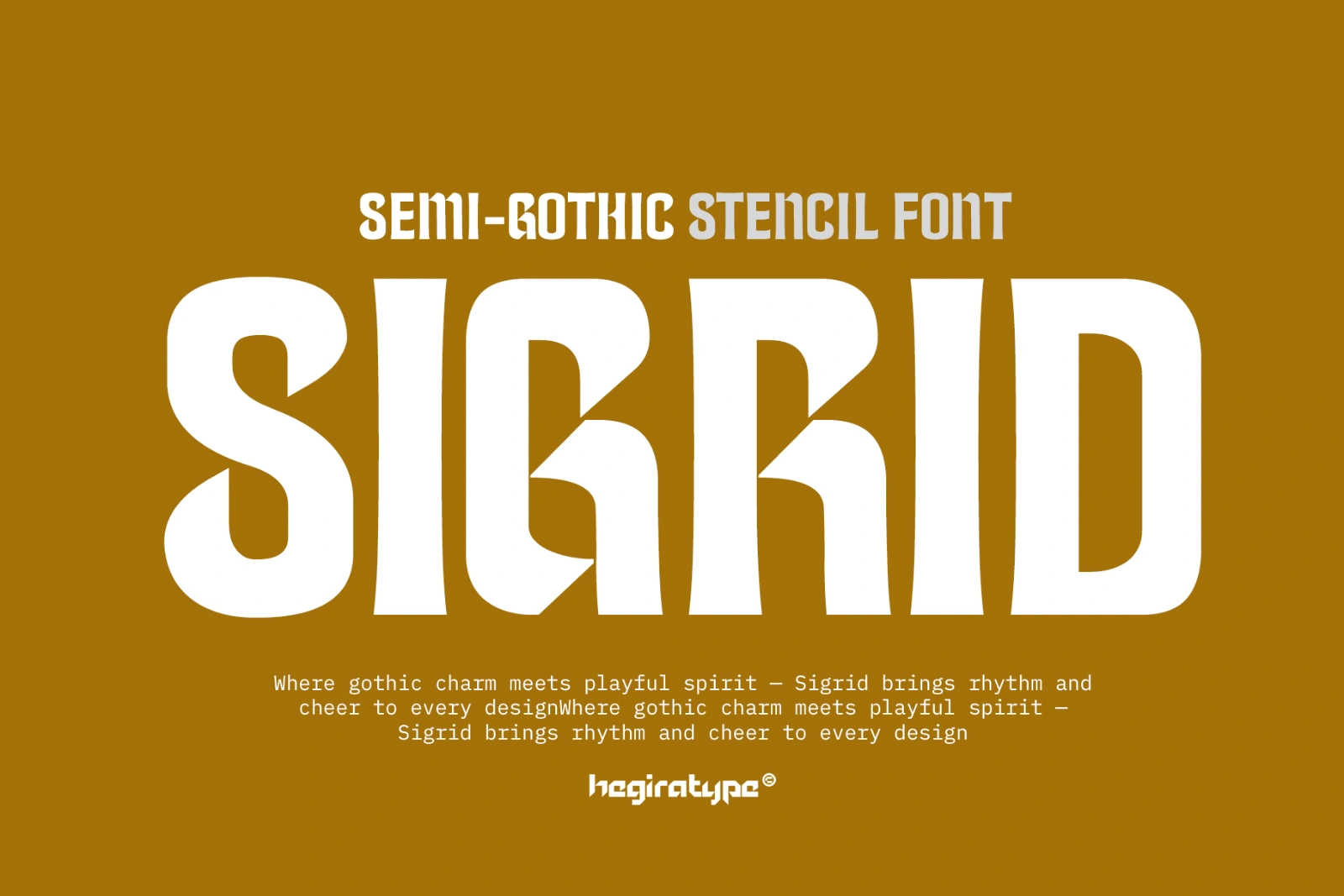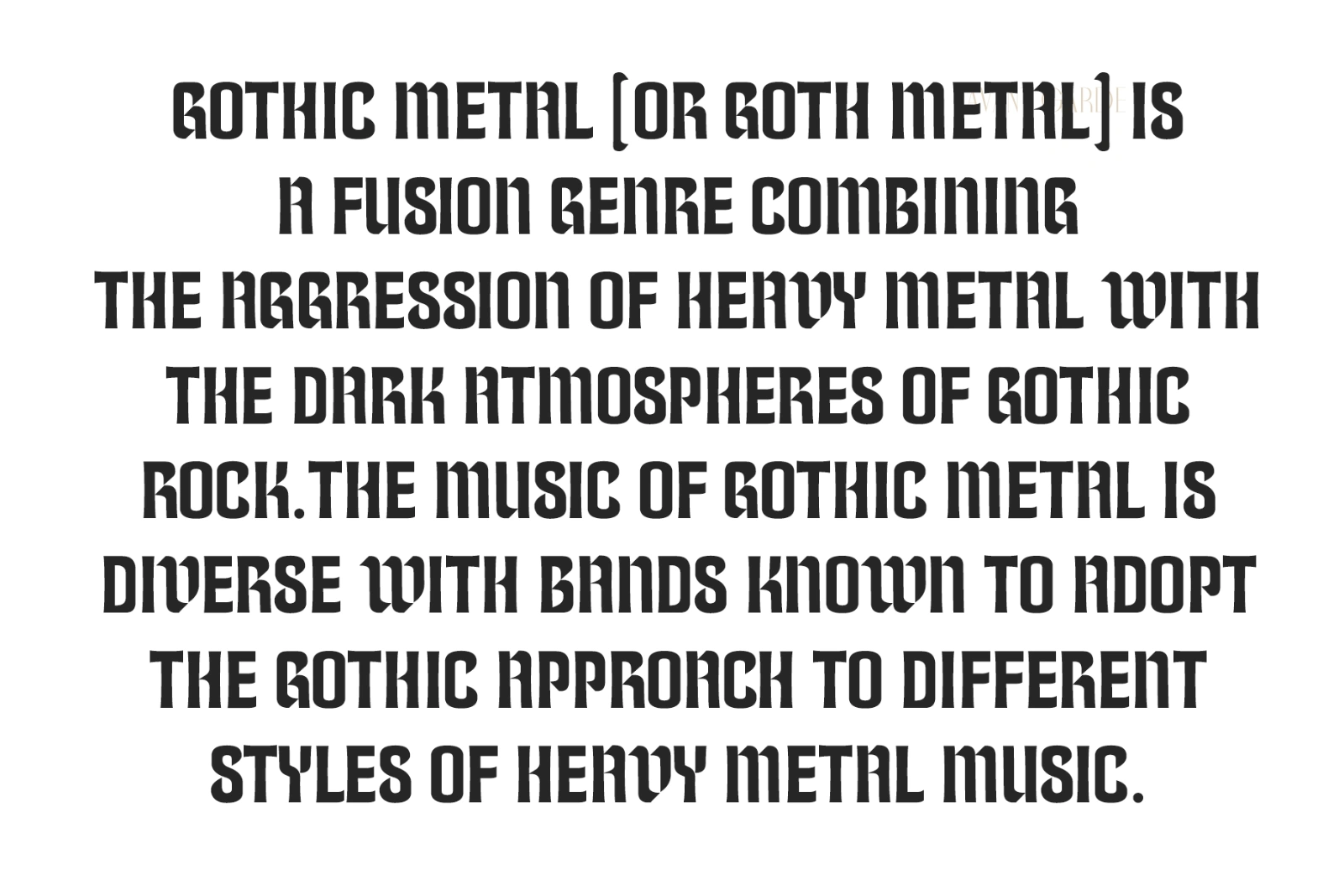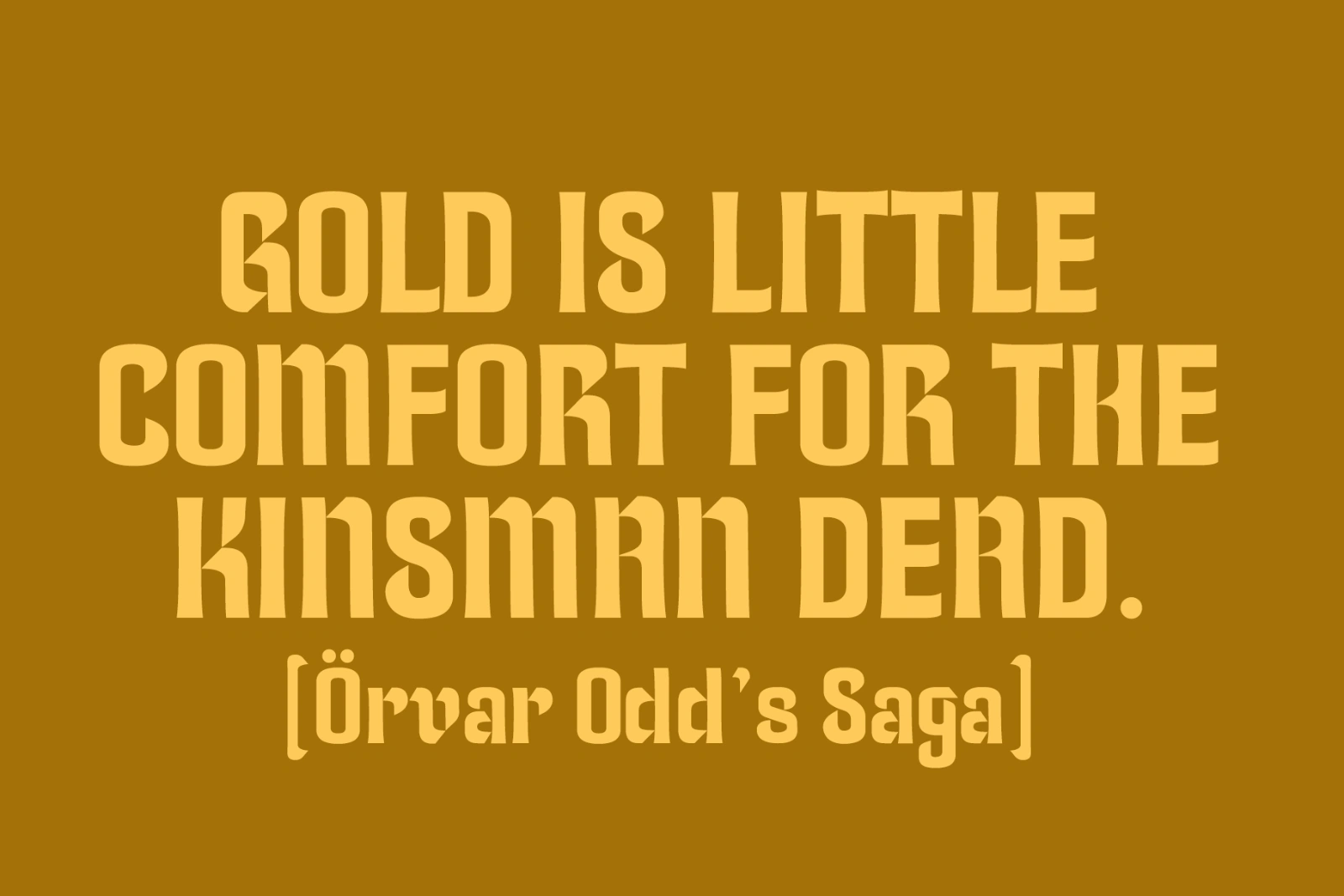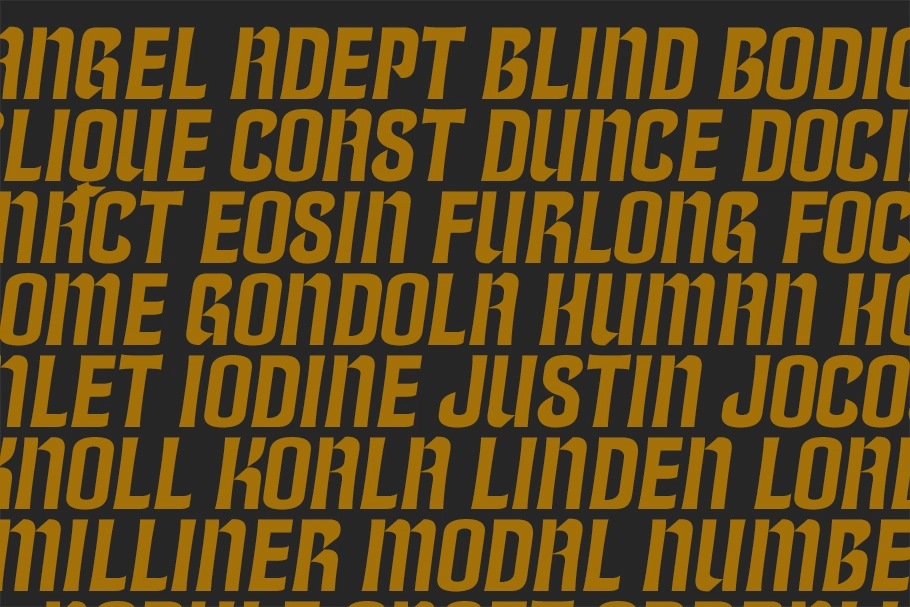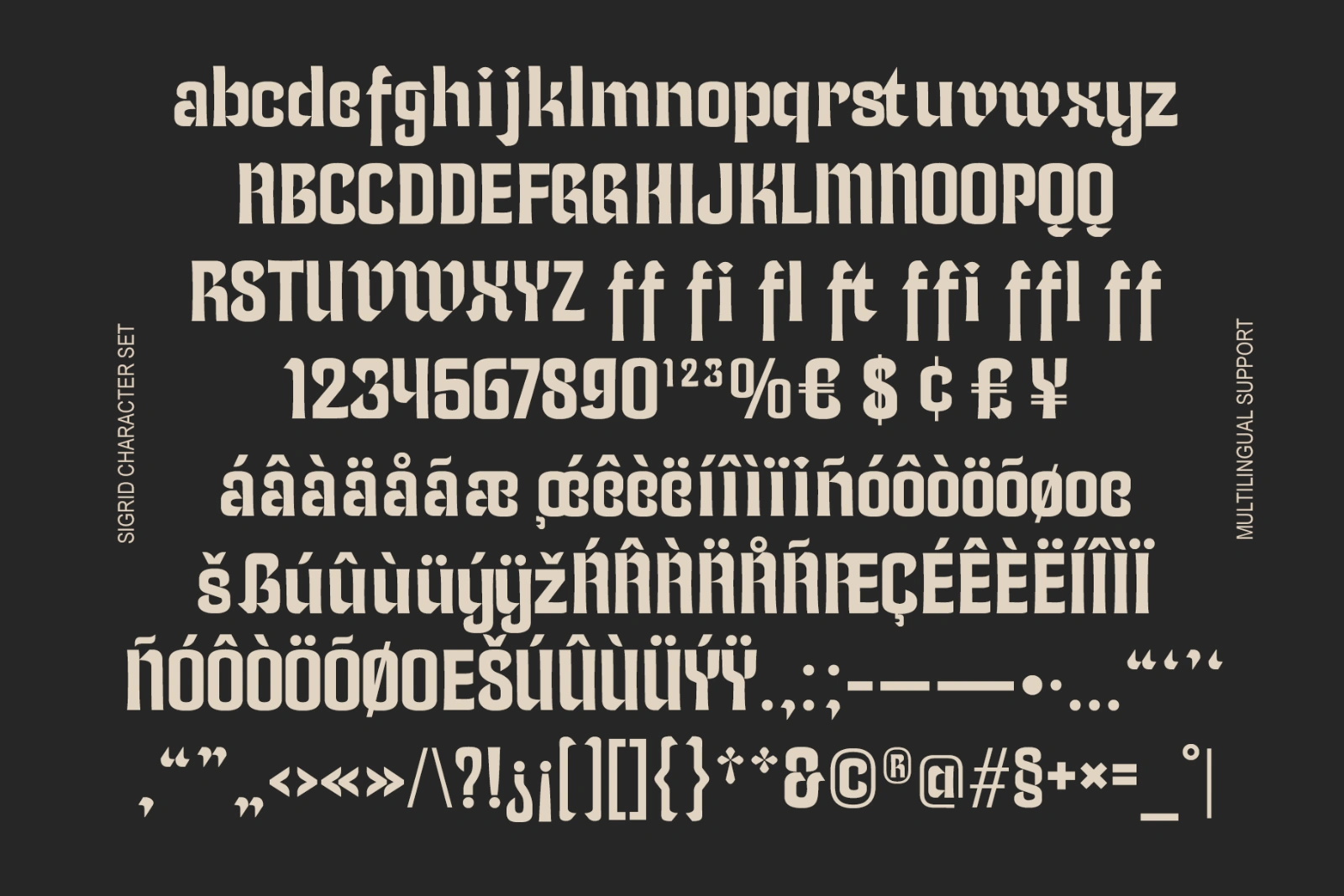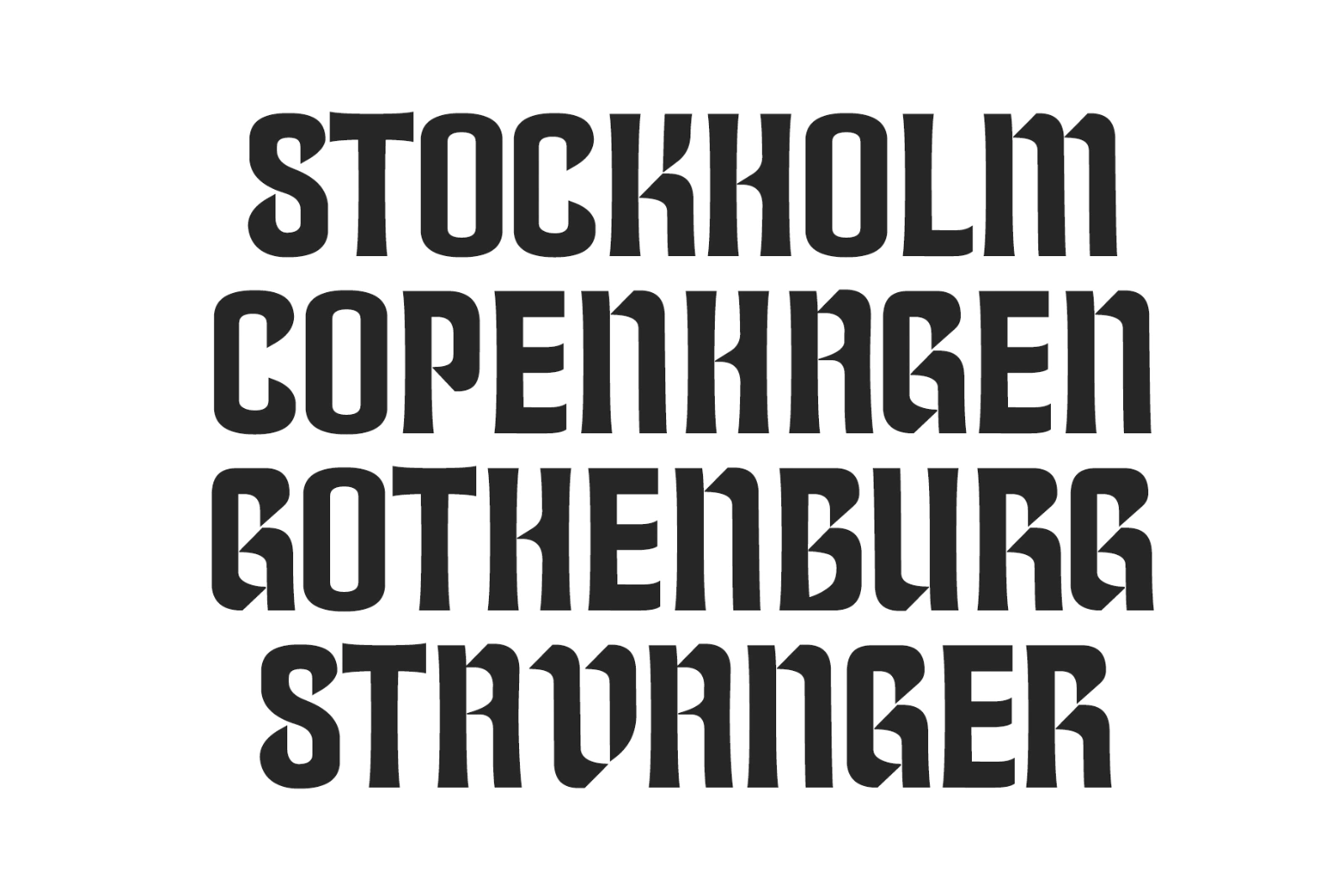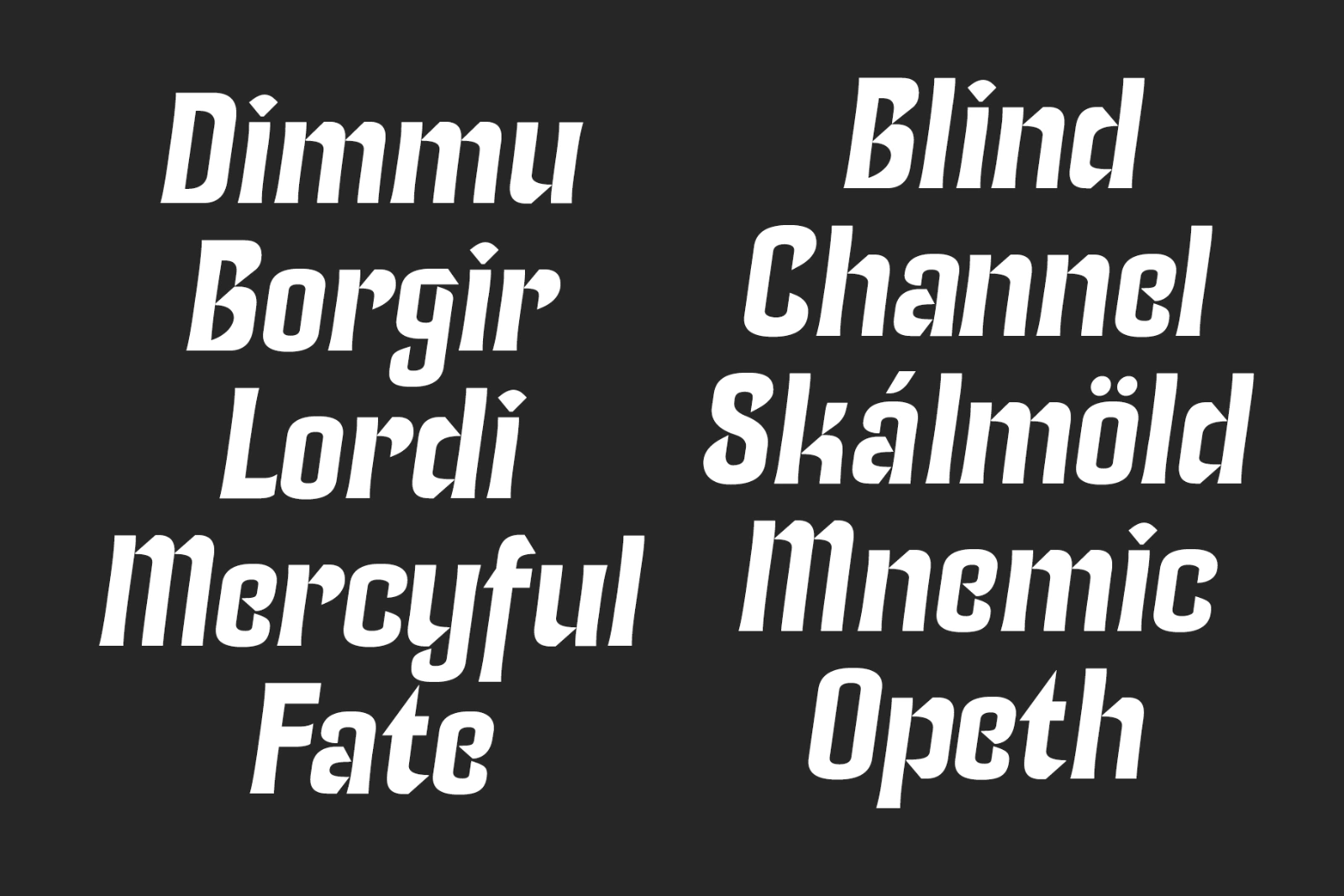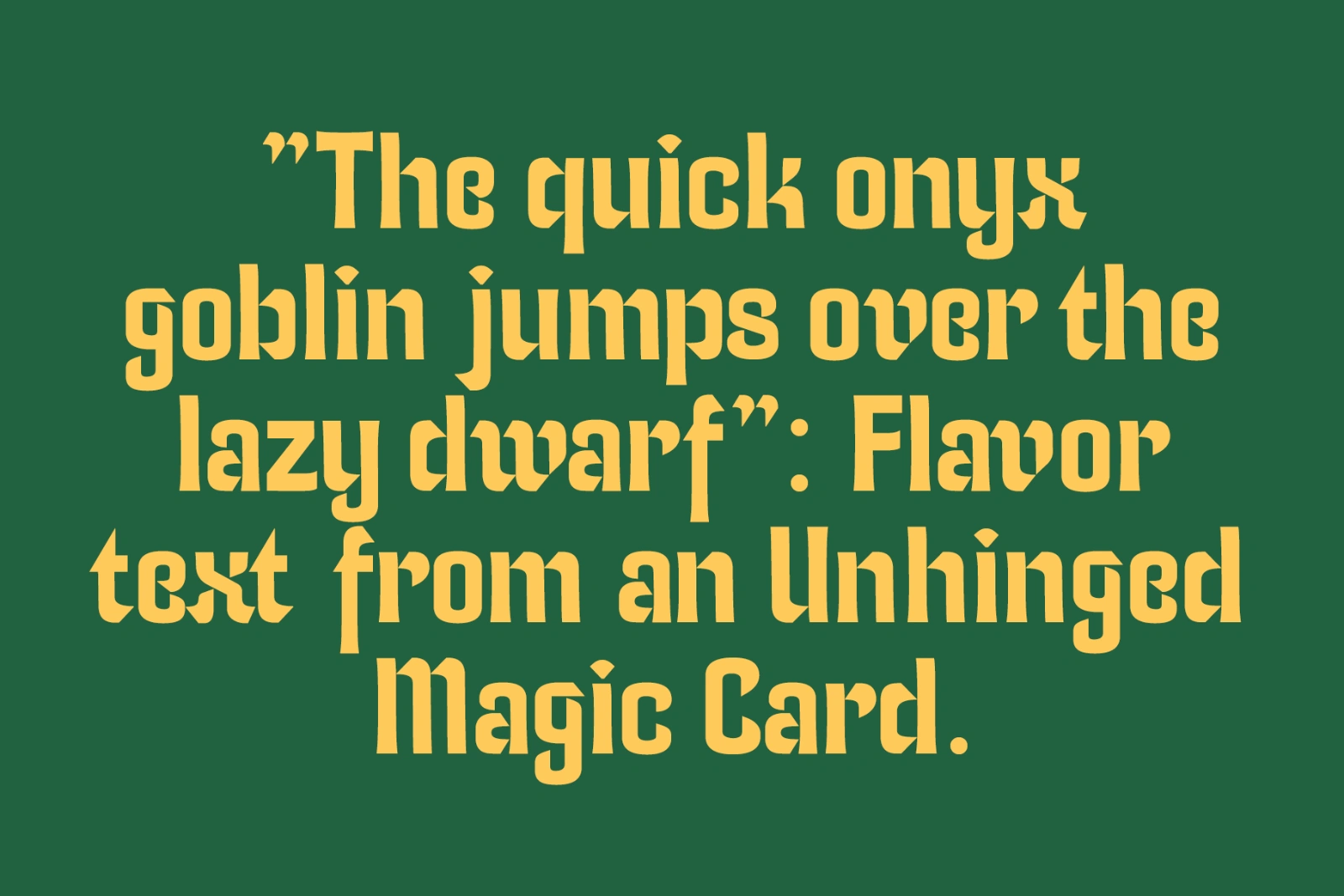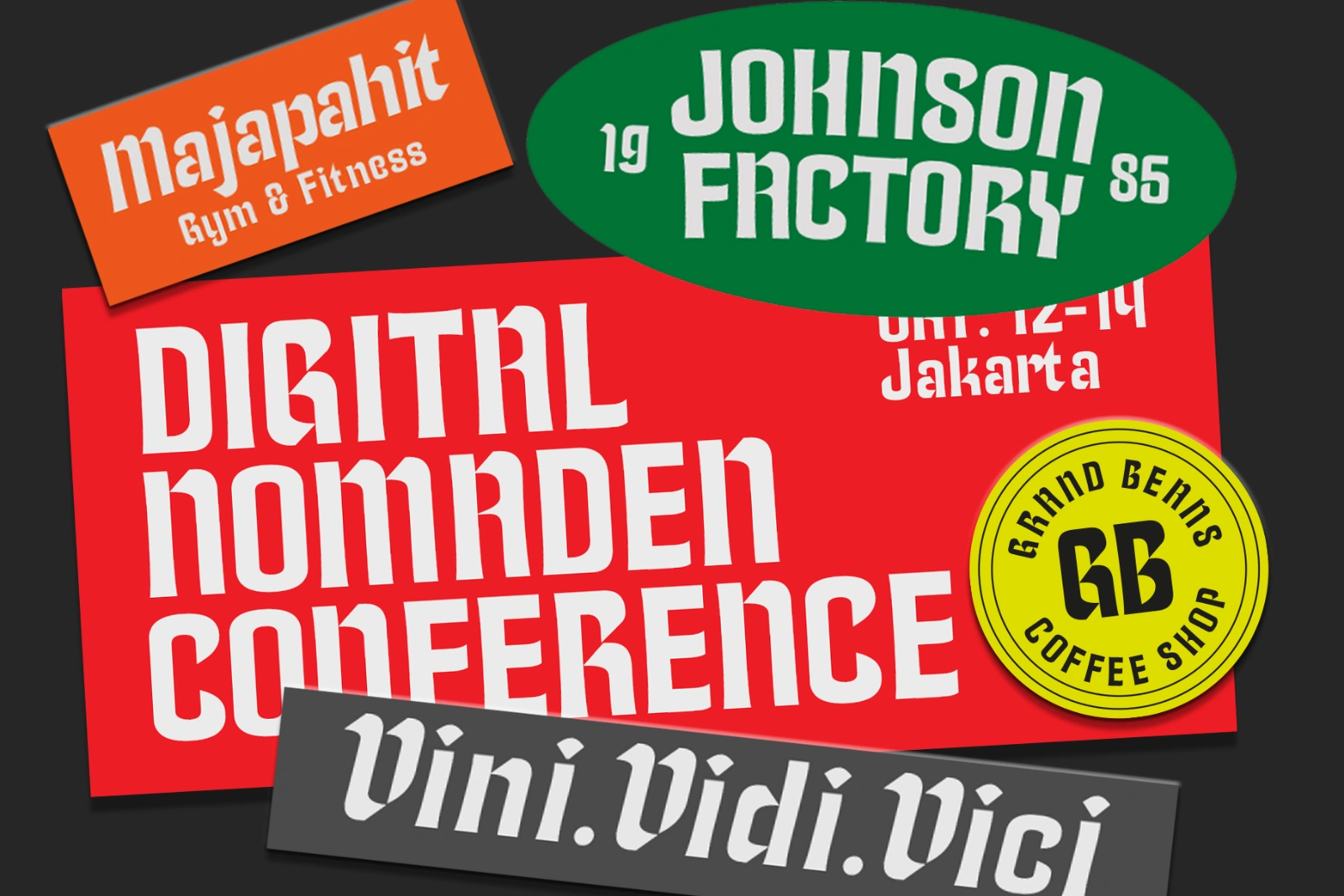
Sigrid is a semi-gothic stencil typeface that merges bold historical influence with modern design playfulness. Its rhythmic letterforms and open stencil cuts create a visual tempo that feels both strong and cheerful, balancing gothic presence with approachable energy.
Designed for headlines, posters, logos, and creative branding, Sigrid delivers impact while keeping the mood vibrant and spirited. It is ideal for projects that demand attention while also radiating positivity and movement.
This is a font that invites you to feel as much as to read. Every letter pulses like music, every word carries movement, and every message shines with enthusiasm. Sigrid is not only a typeface—it is a companion for creators who believe design should be expressive, bold, and full of life.